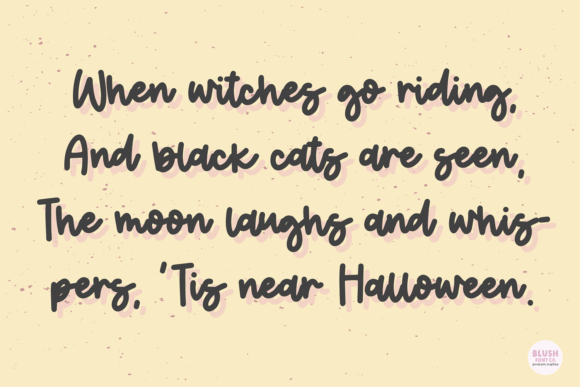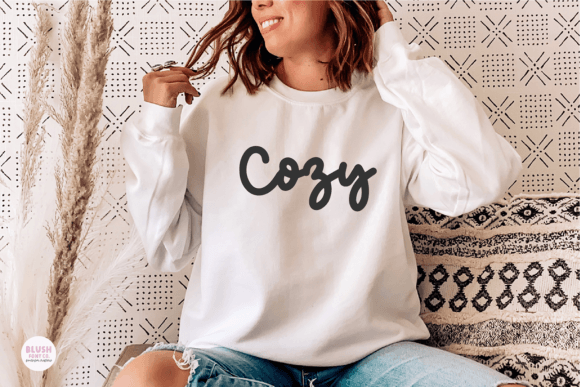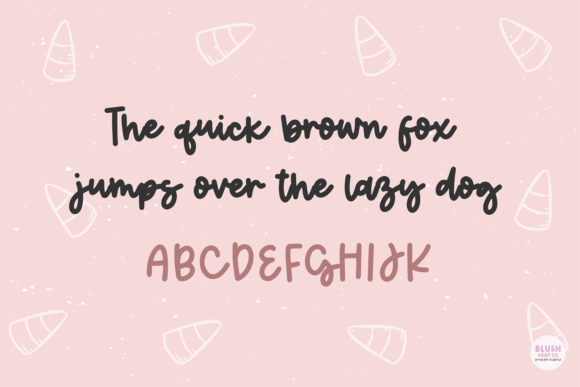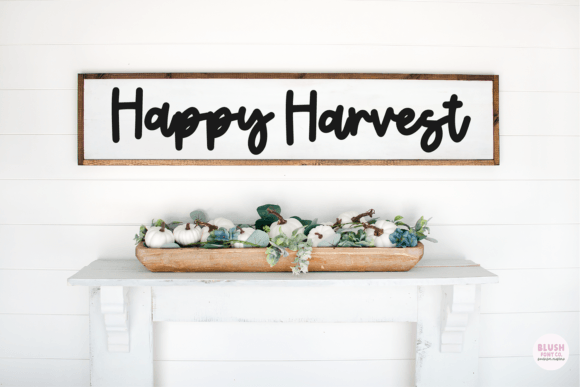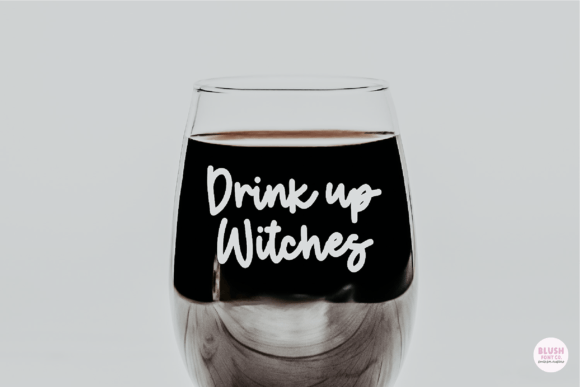
Candy Corn Font: A Spooktacular Addition to Your Halloween Designs
Are you looking for a font that will add a touch of Halloween magic to your designs? Look no further than the Candy Corn Font, a delightful script font that’s perfect for creating spooky yet sweet Halloween-themed projects. In this article, we’ll dive into the world of Candy Corn Font, exploring its features, uses, and benefits for designers and crafters.
What is Candy Corn Font?
Candy Corn Font is a unique and festive script font that’s specifically designed for Halloween. This installable font is perfect for creating a variety of Halloween-themed projects, including party invitations, web graphics, and other decorative elements. With its playful and whimsical design, Candy Corn Font is sure to add a touch of autumnal charm to your designs.
Features of Candy Corn Font
- Unique and Festive Design: Candy Corn Font features a distinctive and eye-catching design that’s perfect for Halloween. Its script style is both elegant and playful, making it ideal for a wide range of design projects.
Uses of Candy Corn Font
Candy Corn Font is a versatile font that can be used in a variety of Halloween-themed design projects, including:
- Halloween Party Invitations: Create spooky yet sweet invitations that will set the tone for your Halloween party.
- Web Graphics: Add a touch of Halloween magic to your website or blog with Candy Corn Font.
- Halloween Decor: Use Candy Corn Font to create festive decorations, such as banners, garlands, and signs.
- Crafting Projects: Incorporate Candy Corn Font into your crafting projects, such as handmade cards, gift tags, and scrapbook pages.
Candy Corn Font is a spooktacular addition to any designer’s font collection. With its unique and festive design, installable format, and versatility, it’s the perfect font for creating a wide range of Halloween-themed design projects. Whether you’re a designer, crafter, or simply someone who loves Halloween, Candy Corn Font is sure to add a touch of autumnal charm to your designs.